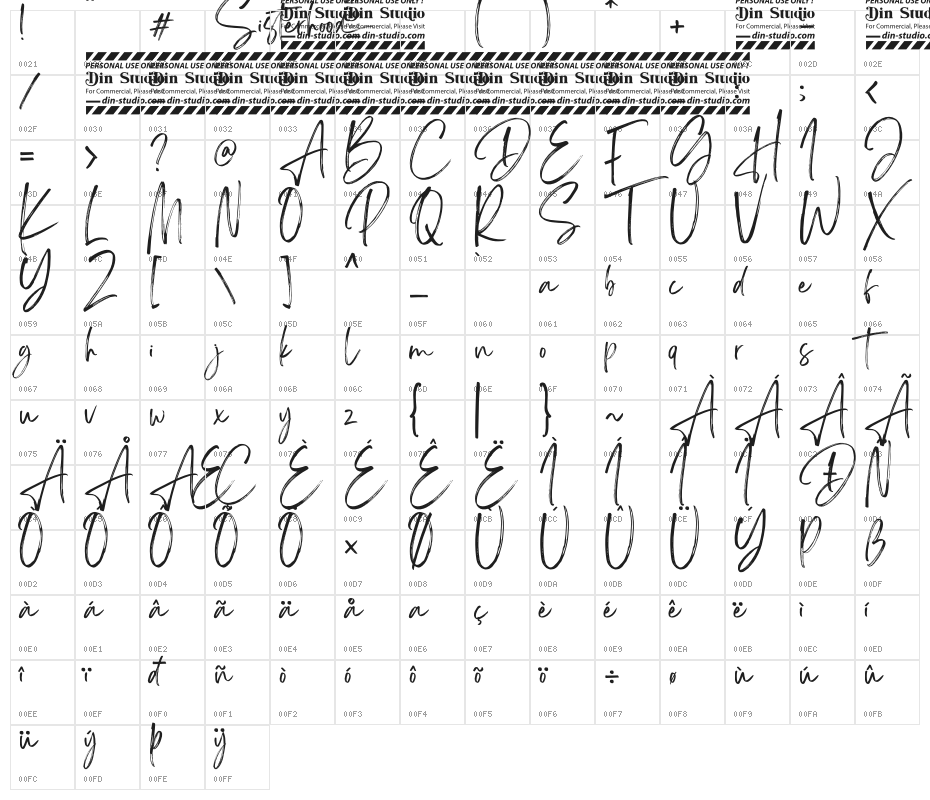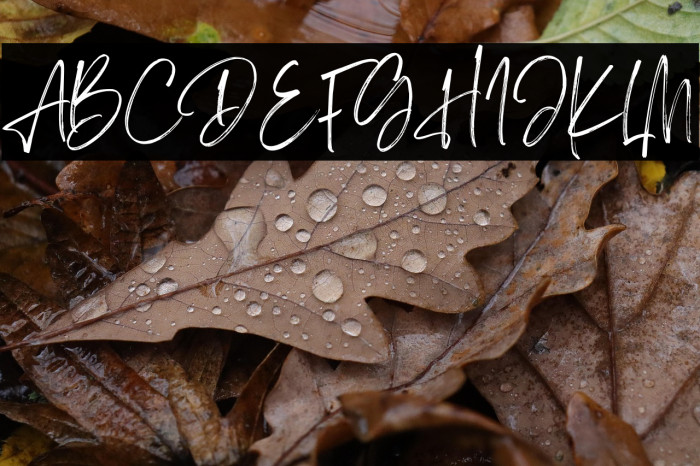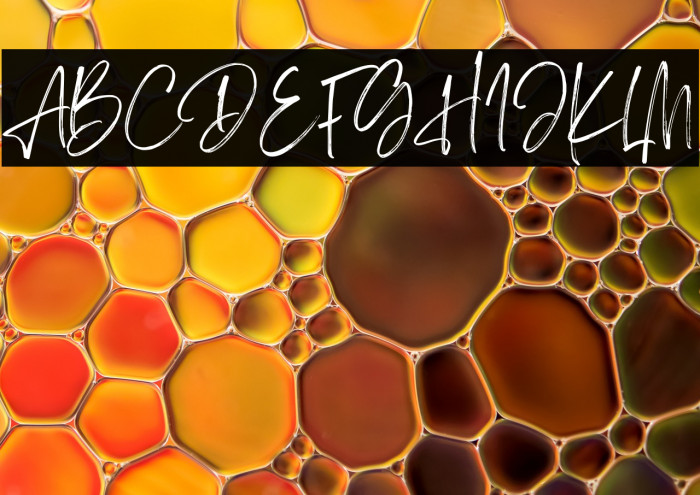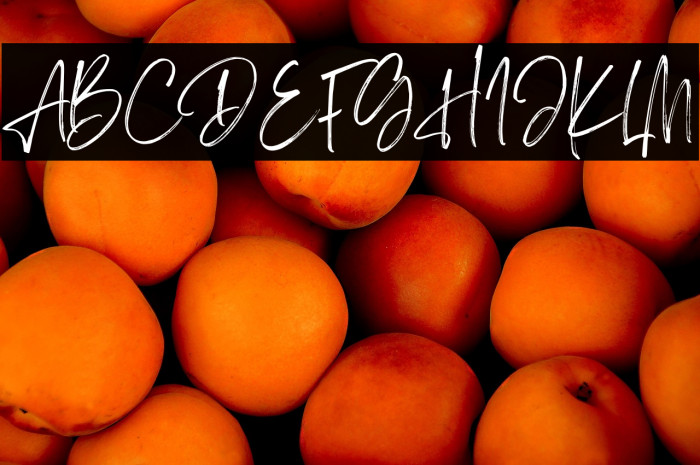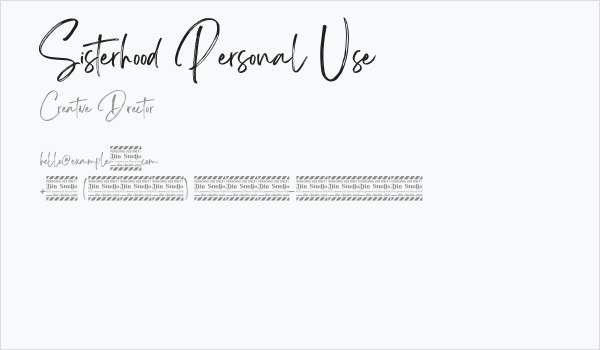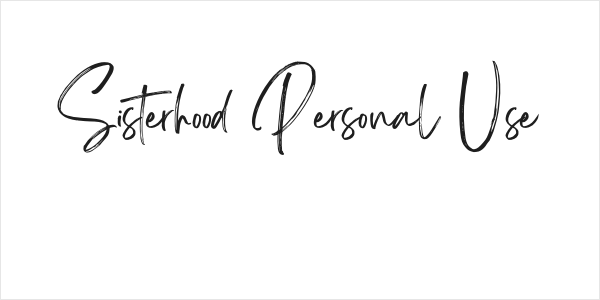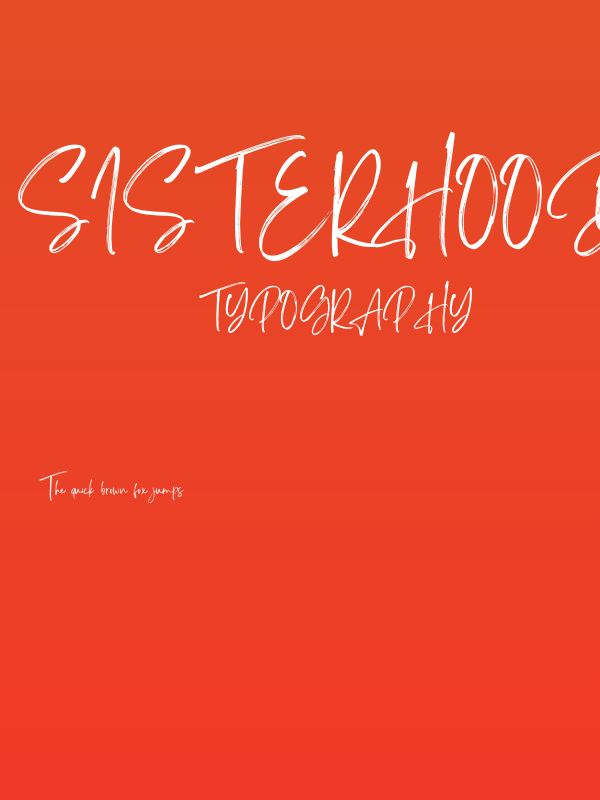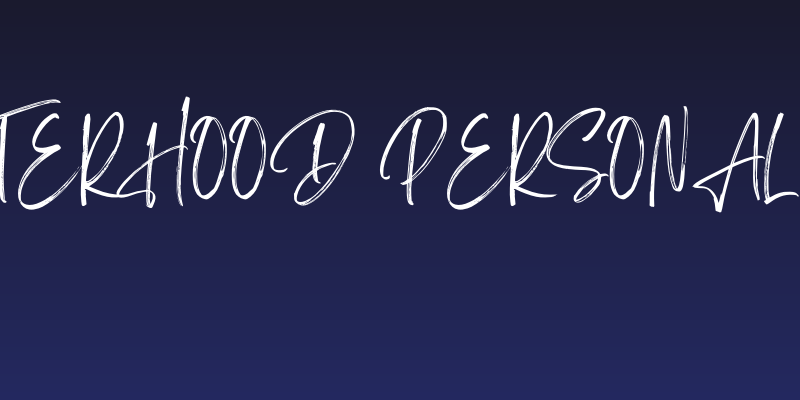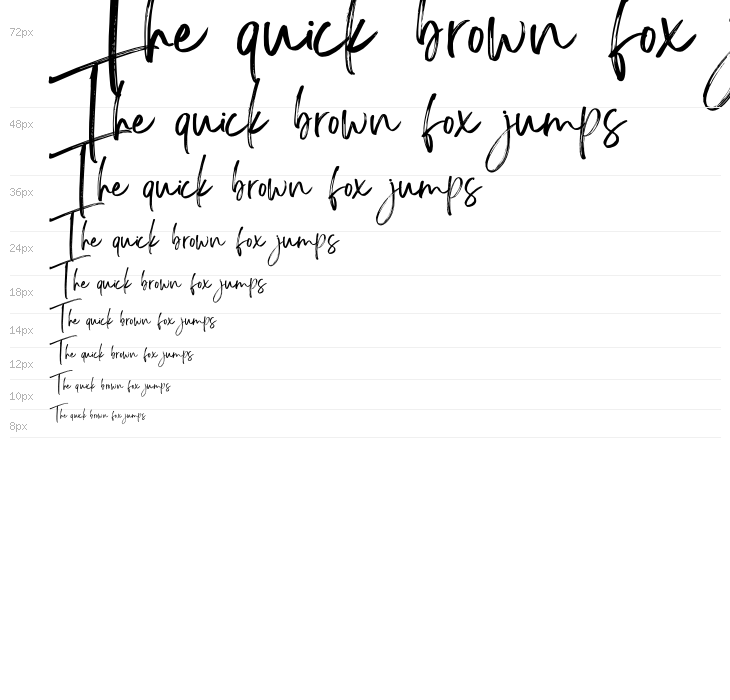
Sisterhood Personal Use Font
Sisterhood Personal Use Description
This font features a dynamic and expressive handwritten style, characterized by its fluid and flowing letterforms. The uppercase letters exhibit a bold and confident stroke, while the lowercase letters maintain a more delicate and cursive appearance. The overall design is reminiscent of a personal signature, with varying stroke widths that add a sense of movement and energy. The font includes a full set of uppercase and lowercase letters, numbers, and a selection of special characters, making it versatile for various design needs. Its artistic flair and casual elegance make it suitable for projects that require a personal touch.
| Proposed Projects | Ideal for invitations, greeting cards, branding, social media graphics, and personal projects that require a handwritten touch. |